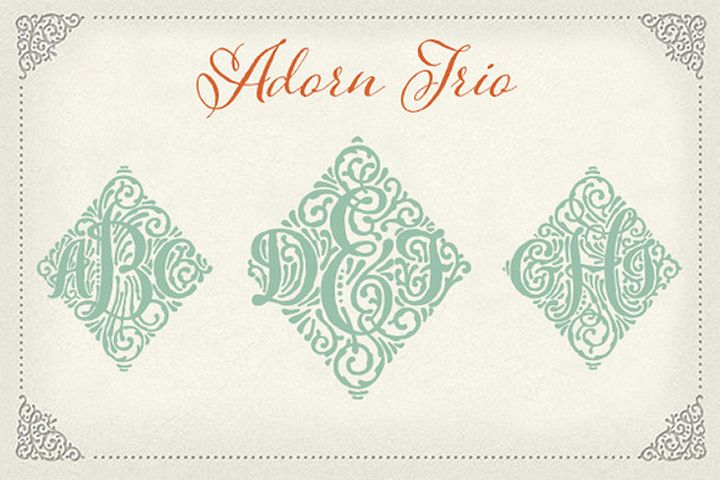
A fresh and airy monogram font – simply type in three letters and your monogram is finished! These monograms were carefully wrought: each combination of letters is a revelation of complex crafting, with no collisions or overlaps. Despite their intricacy and detail, these are not your grandmother’s monograms; they are modern and bursting with personality. Graphic designers will have their own uses for these; DIYers will see a takeoff point for jewelry, cards, invitations, rubber stamps—an endless source for personalizing and elevating the everyday, the special gathering, or a handmade creation.